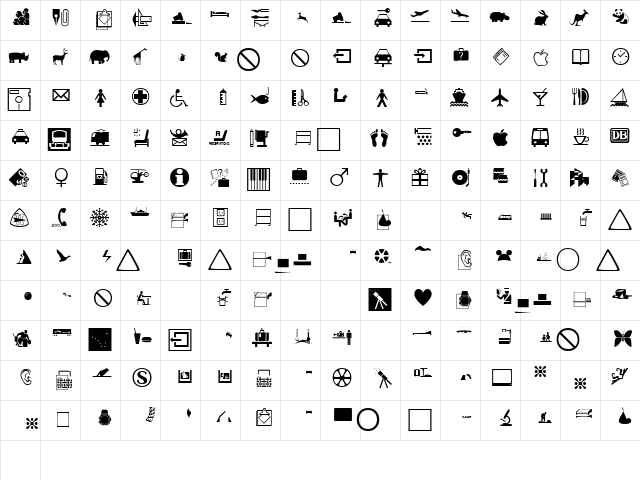
JournalDingbatsSevenSSi Regular Font Preview
JournalDingbatsSevenSSi Regular
Design Context for JournalDingbatsSevenSSi Typeface
JournalDingbatsSevenSSi is a composed and adaptable typeface that performs quietly and consistently across a wide range of design contexts.